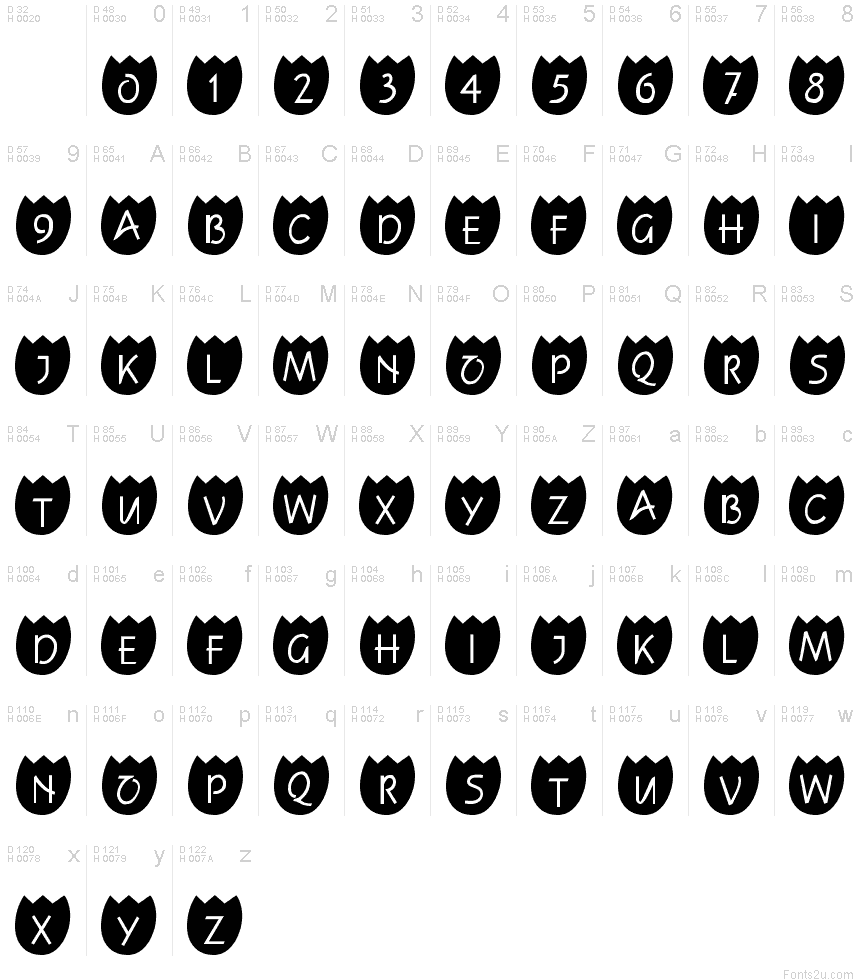
101! TulipZ
101! TulipZ is a striking display font that exudes a distinct decorative flair. Designed by Nght, this unique typeface features a bold, negative-style aesthetic, with its inverted letterforms creating a captivating visual contrast. The angular, geometric shapes and sharp edges lend the font a strong, contemporary feel, while the underlying organic curves and flourishes add a touch of whimsy and elegance.
This font's versatility makes it well-suited for a range of design applications, from eye-catching headlines and impactful logos to stylized branding and editorial layouts. Its bold presence commands attention, making it an excellent choice for projects that require a bold, attention-grabbing typographic statement.